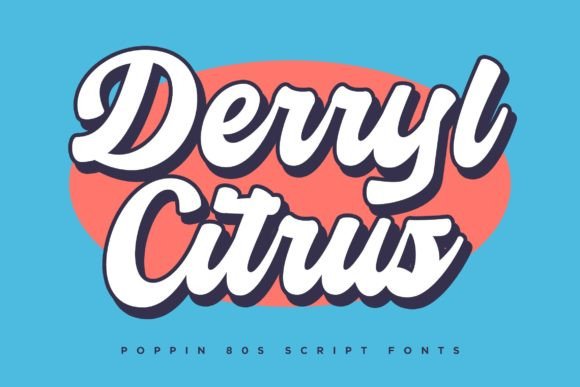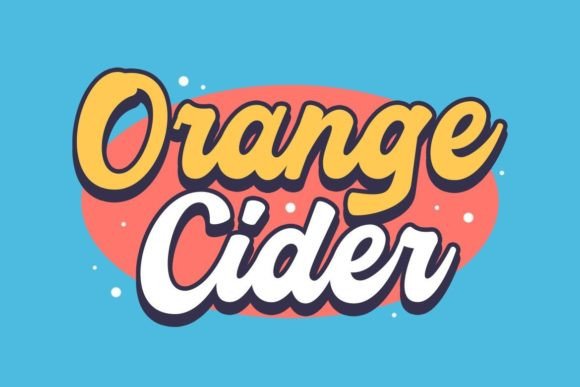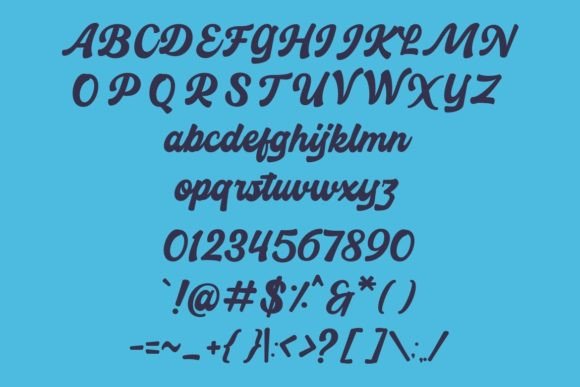
Derryl Citrus Font
About Derryl Citrus Font
Derryl Citrus is not just a font; it’s a blast from the past, a vibrant and nostalgic journey back to the vibrant era of the 80s. With its retro vibe and lively character, this font has the power to transform your designs into a visual time machine, transporting your audience to the exciting and colorful days of the past. Perfectly suited for vintage, retro, classical, sign painting, apparel, food and beverages, social media content, logos, branding, and much more, Derryl Citrus is your passport to a world of creative possibilities.
Imagine Derryl Citrus in a vintage signage context. Its bold and lively letters capture the essence of retro aesthetics, making it ideal for sign painting and classic storefront designs. Whether it’s on a neon sign, a chalkboard menu, or a vintage poster, this font enhances the visual appeal, creating a nostalgic atmosphere that resonates with viewers. Derryl Citrus turns ordinary signs into eye-catching visual delights, inviting passersby to step into a world of vintage charm.
In retro apparel designs, Derryl Citrus adds a touch of funky elegance. Picture it on retro-inspired t-shirts, jackets, or accessories. Its bold and playful characters create a sense of nostalgia, making the apparel pieces stand out. Derryl Citrus’ 80s vibe transforms ordinary clothing items into fashion statements, reflecting the wearer’s love for vintage style. This font enhances the retro appeal of apparel, making it trendy and fashionable for those who appreciate the classics.
For food and beverage branding, Derryl Citrus infuses a burst of energy. Whether it’s used on packaging for retro-inspired snacks, soda labels, or brewery logos, this font adds a sense of fun and excitement. Derryl Citrus’ vibrant and lively letters create a memorable brand identity, making the products visually appealing and memorable. The font’s retro charm ensures that the branding leaves a lasting impression on customers, creating a sense of brand loyalty and recognition.
In social media content, Derryl Citrus adds a splash of color. Whether it’s used in Instagram posts, Facebook banners, or YouTube thumbnails, this font creates visually engaging content. Derryl Citrus’ playful 80s vibe adds a sense of nostalgia and excitement, capturing the attention of social media users. The font enhances the visual appeal of the content, making it shareable and memorable for online audiences.
Moreover, Derryl Citrus seamlessly integrates into logo design and branding applications. Its retro charm and lively characters create a distinctive brand identity, making it ideal for businesses looking to stand out. Whether it’s a retro-inspired cafe, a vintage clothing store, or a nostalgic entertainment brand, this font adds a unique personality to the logo, making it memorable and recognizable. Derryl Citrus’ 80s vibe ensures that the brand leaves a lasting impression on clients and customers, fostering a strong brand presence.
In summary, Derryl Citrus is more than just a font; it’s a visual time machine that takes your designs on a journey to the colorful and lively days of the 80s. Its retro vibe and playful character make it a versatile choice for a wide range of applications, from signage and apparel to food and beverage branding and social media content. So, let Derryl Citrus be your creative companion, adding a vibrant and nostalgic touch to your designs and captivating anyone who experiences them.